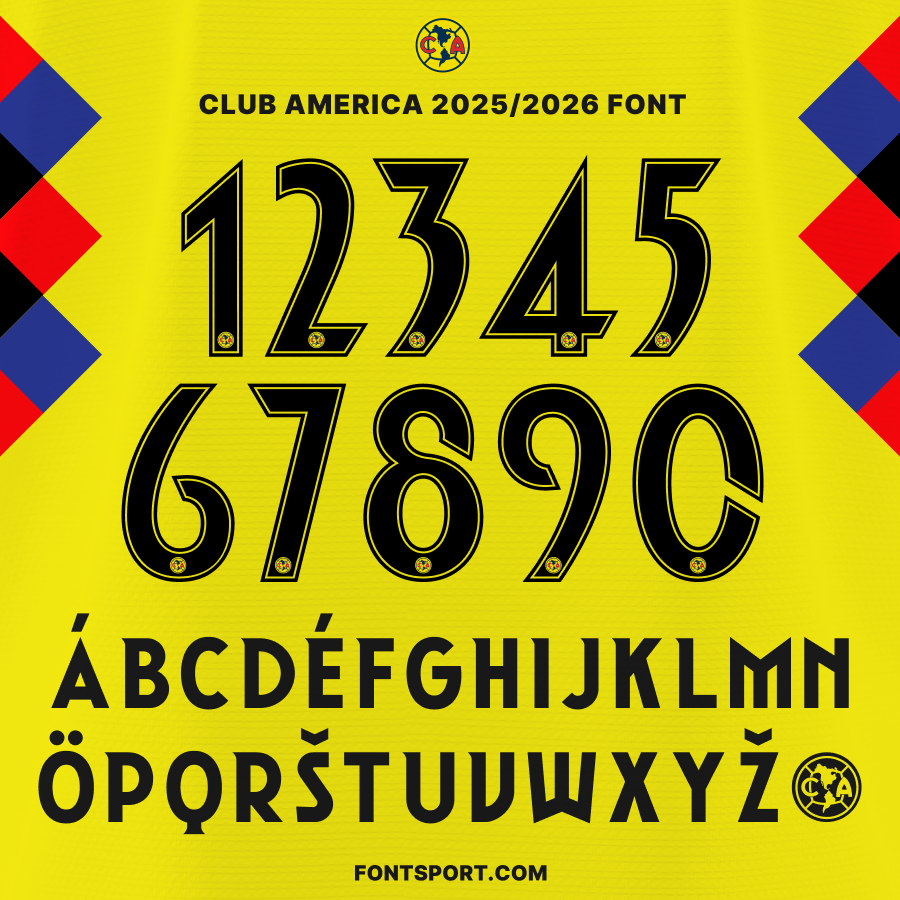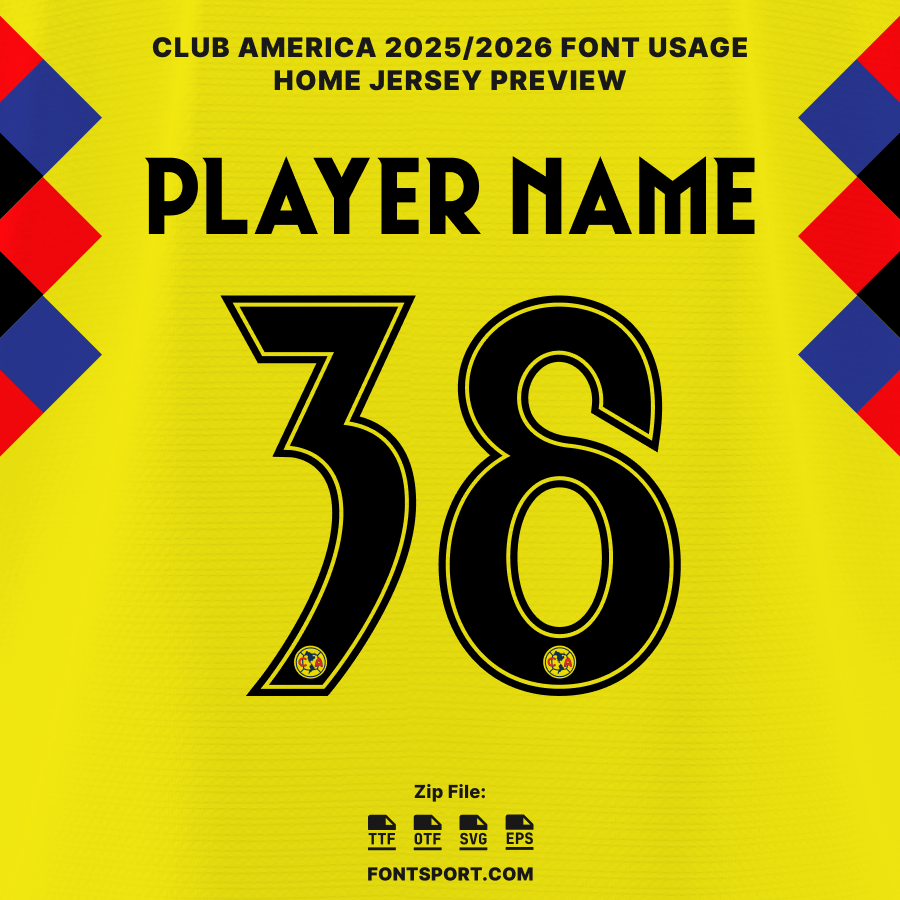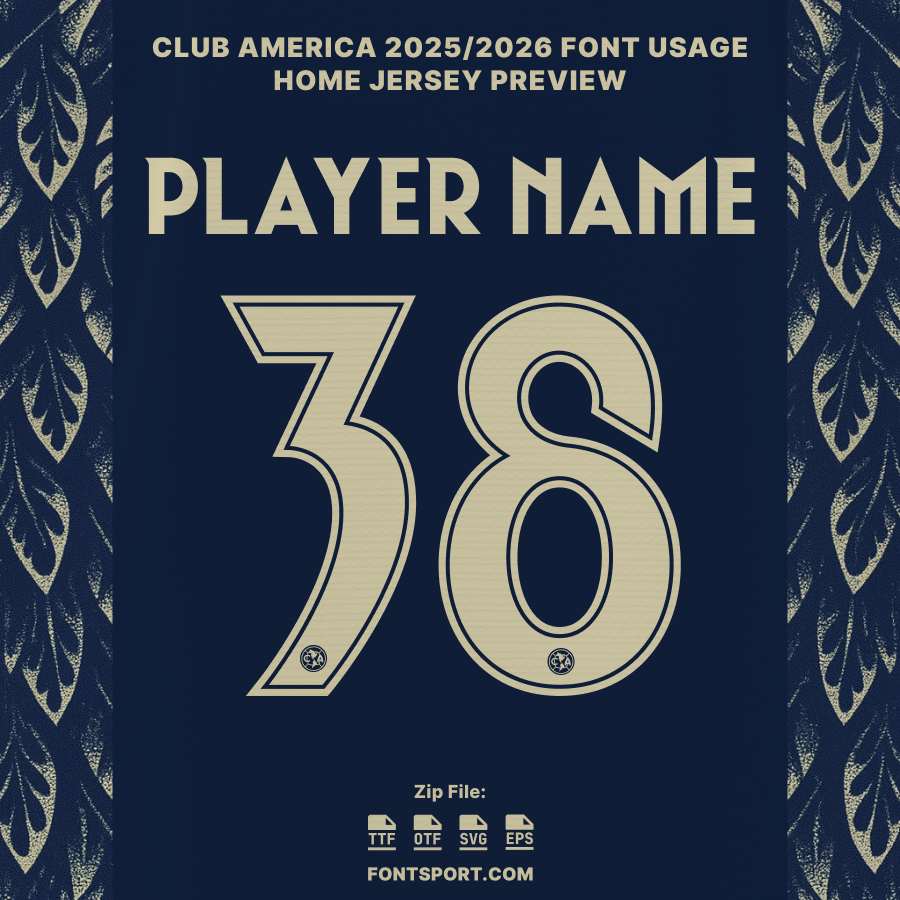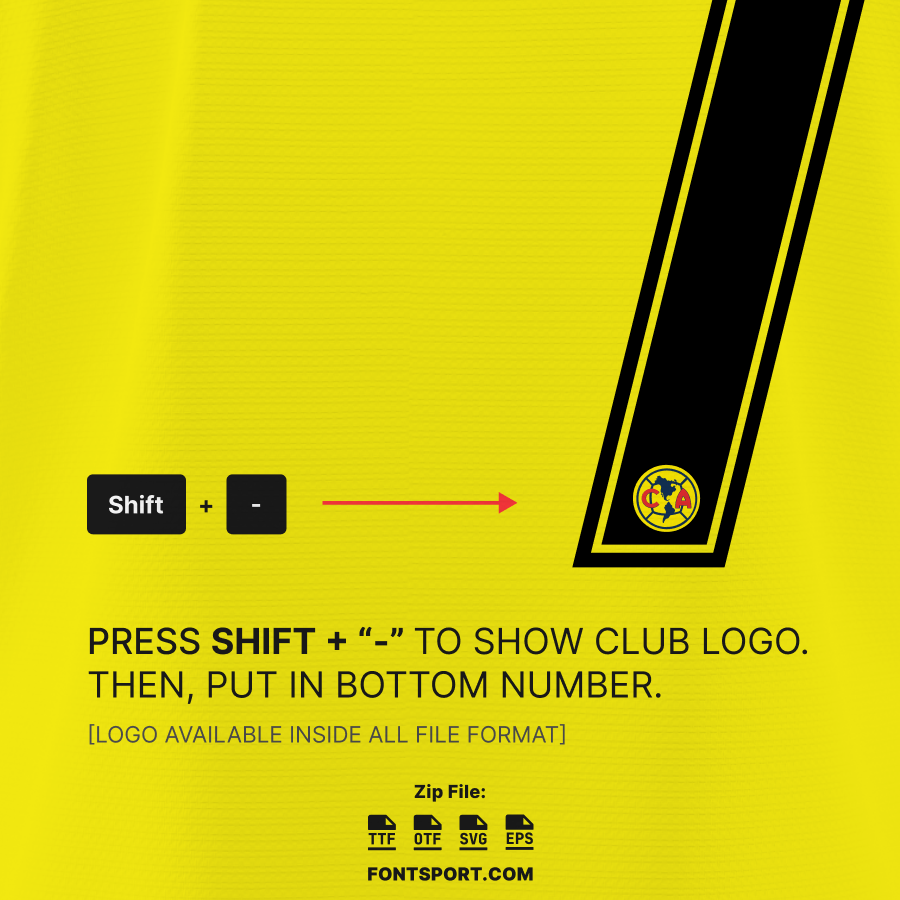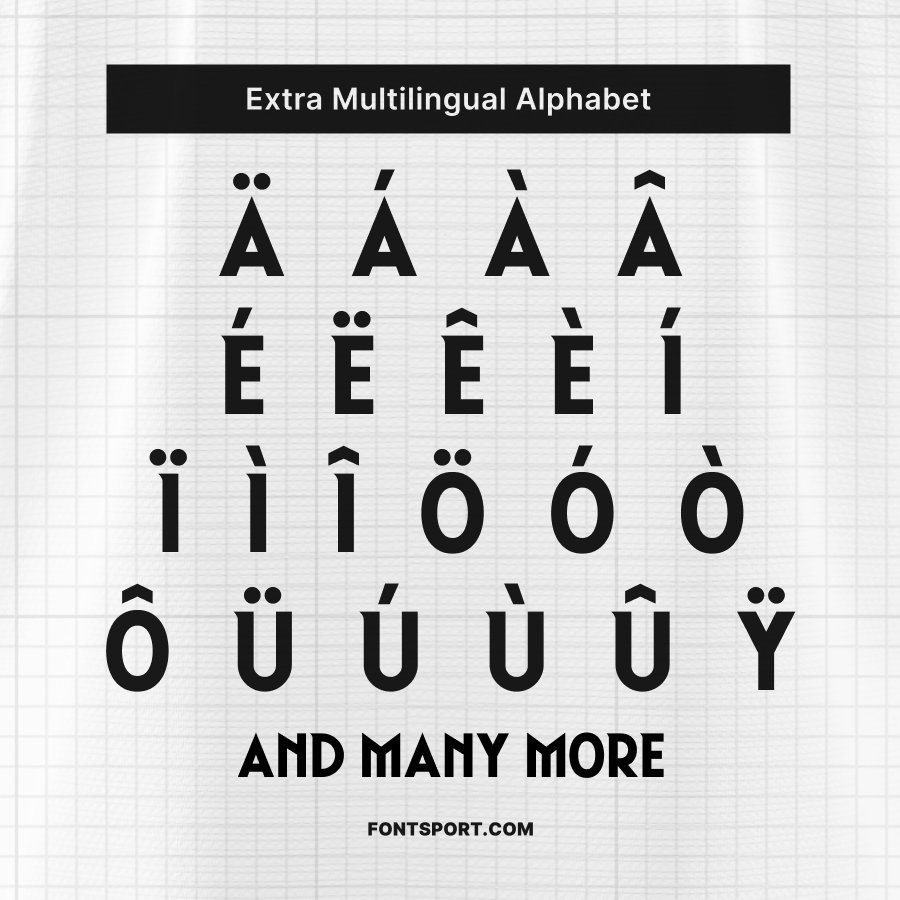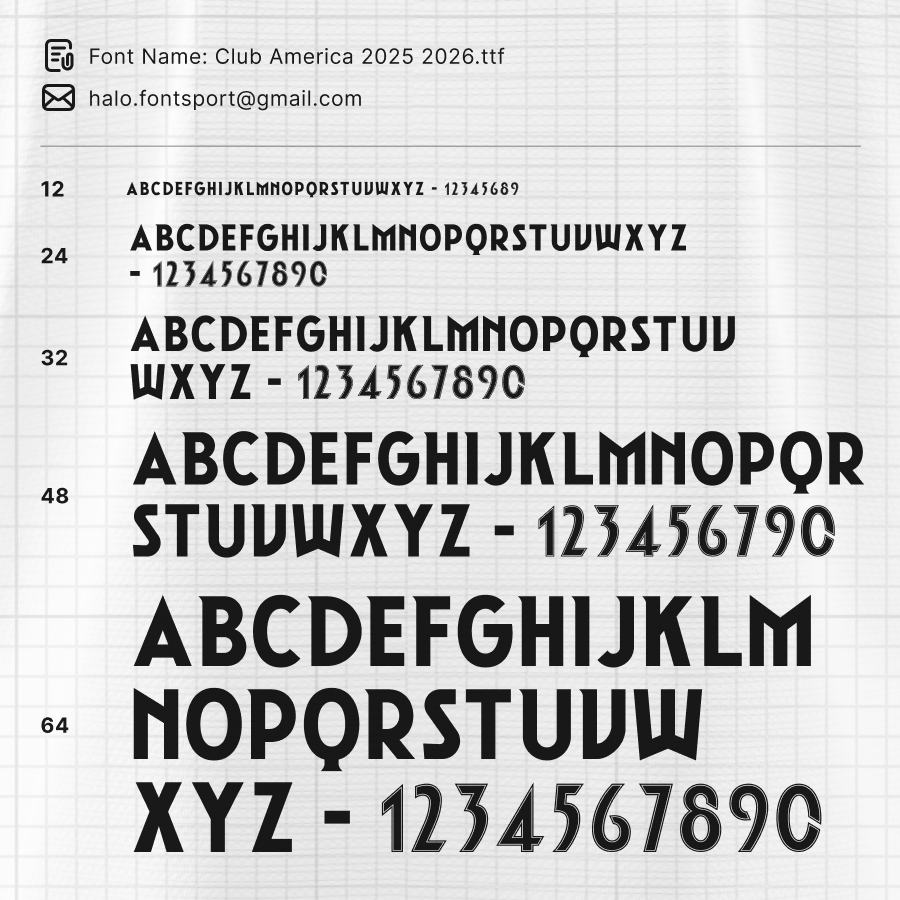
Club América 2025/2026 Font Kit – Official Liga MX Jersey Typeface
The Club América 2025/2026 Font Kit brings the electric identity of Las Águilas directly into your design workflow. Used throughout the Liga MX 2025/26 season, this typeface blends sharp geometry with modern athletic styling, making it ideal for jersey mockups, football posters, supporter merch, and bold sports branding.
Designed with clarity and impact in mind, each number and letter features the iconic eagle crest motif, a signature visual element that symbolizes Club América’s heritage and dominance across Mexico and international competitions.
Key Visual Identity of the Font
• Strong, angular curves for a modern competitive feel
• High readability at all sizes, ideal for broadcast-style graphics
• Eagle-crest detailing inside the numbers for authentic Club América identity
• Balanced proportions that work beautifully on kits, shirts, social graphics, and motion assets
• Eagle crest glyph for enhanced authenticity
Why Designers & Fans Choose This Club América Font
• ⚽ Ideal for Liga MX jersey mockups with official aesthetic
• 🎯 Perfect for posters, banners, and matchday graphic packs
• 🛍️ Great for creating custom Club América merchandise
• 📱 Optimized for social media visuals on Instagram, TikTok, and X
• 🏆 Includes the unique eagle crest detail used in real match kits
Club América in the 2025/2026 Season
The 2025/26 campaign sees Club América pushing for another dominant run in Liga MX and strengthening their presence in continental tournaments. With standout talents such as Henry Martín, Jonathan Rodríguez, and Álvaro Fidalgo, the club’s identity is reflected not only in their performance but also in their bold jersey design.
This font kit captures the visual personality of América’s matchday identity, giving designers and fans a tool that blends official styling with creative flexibility.